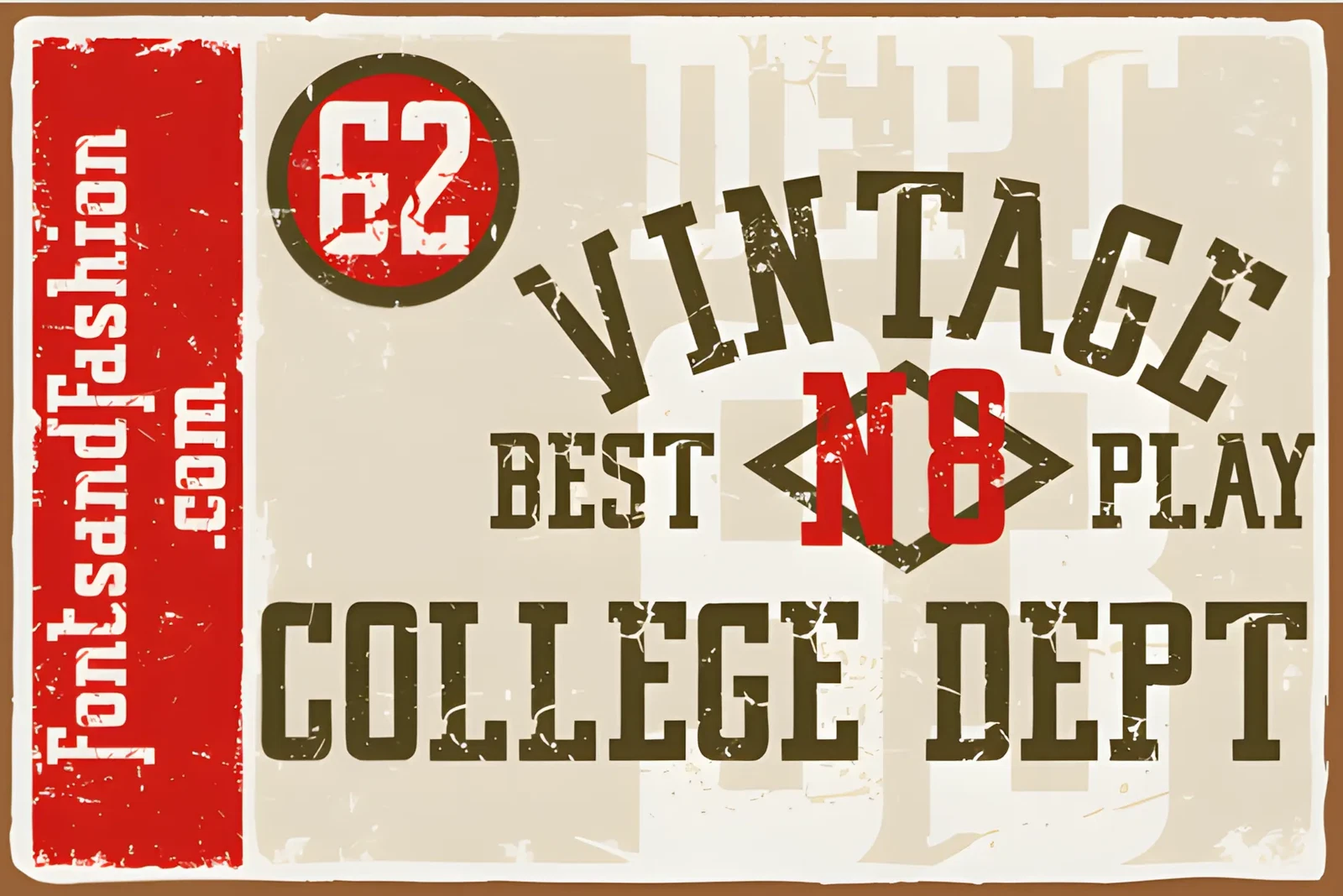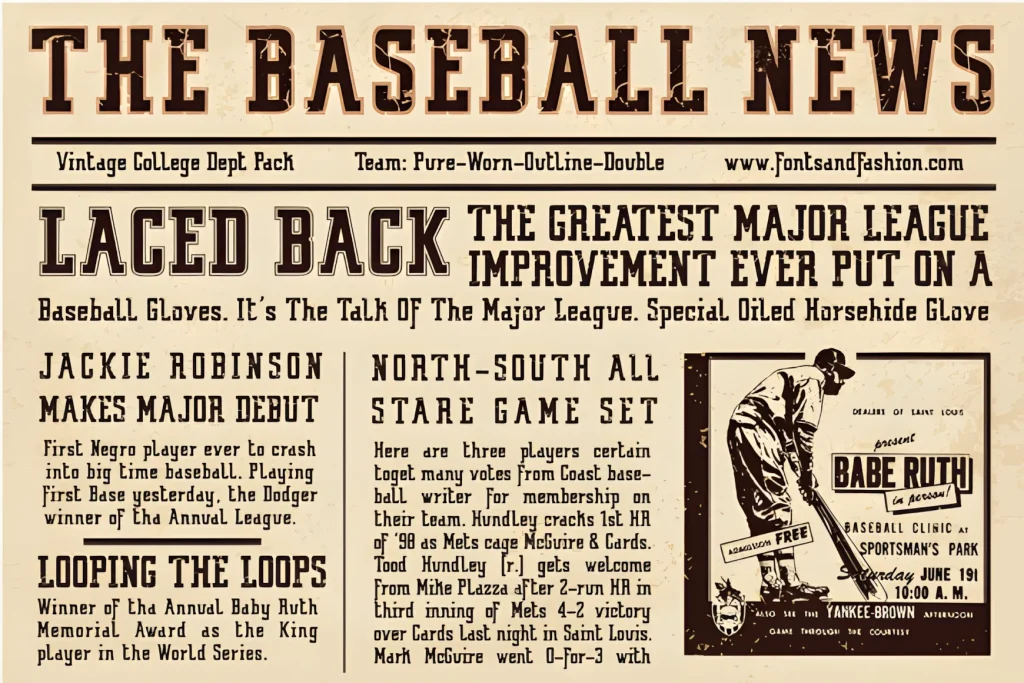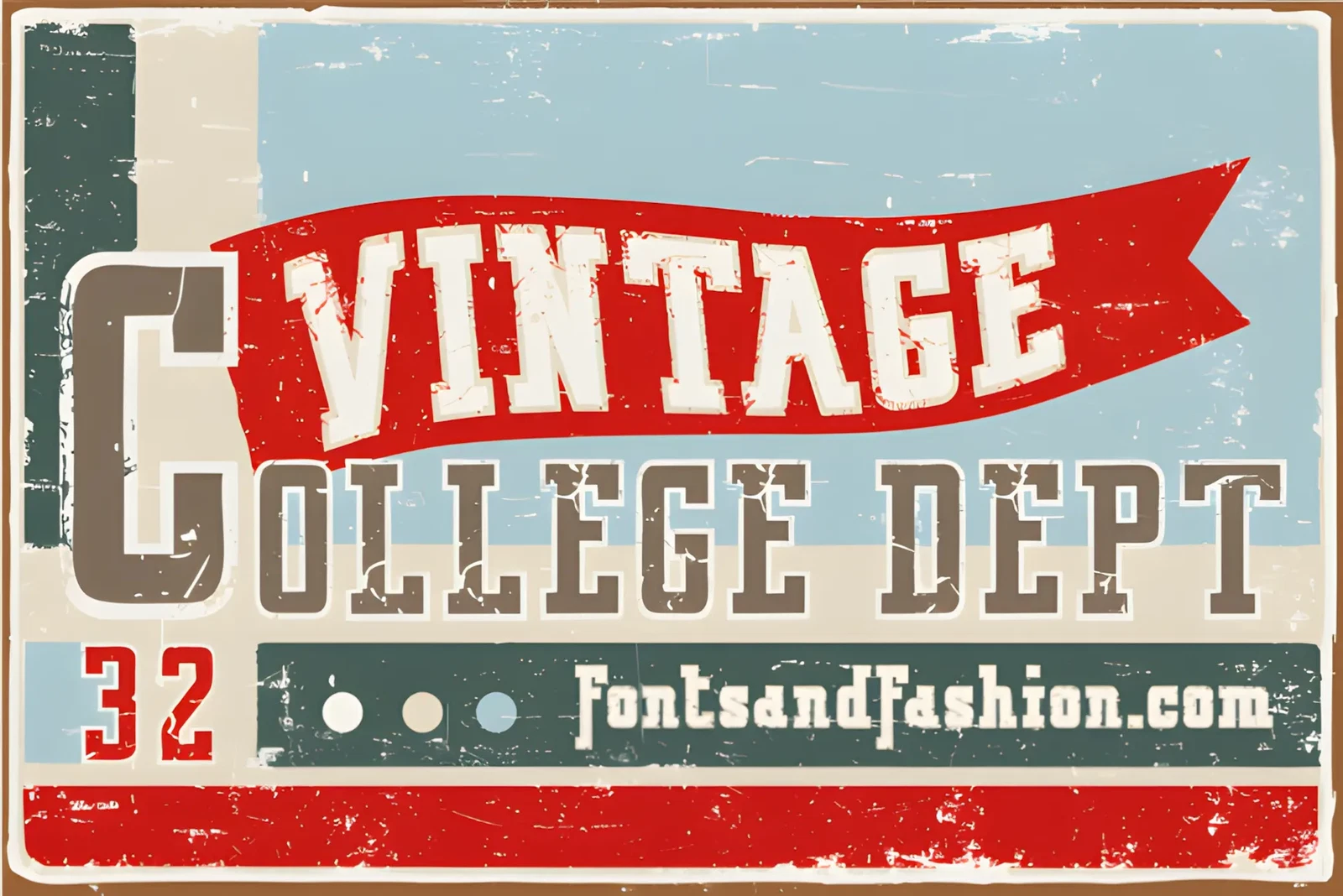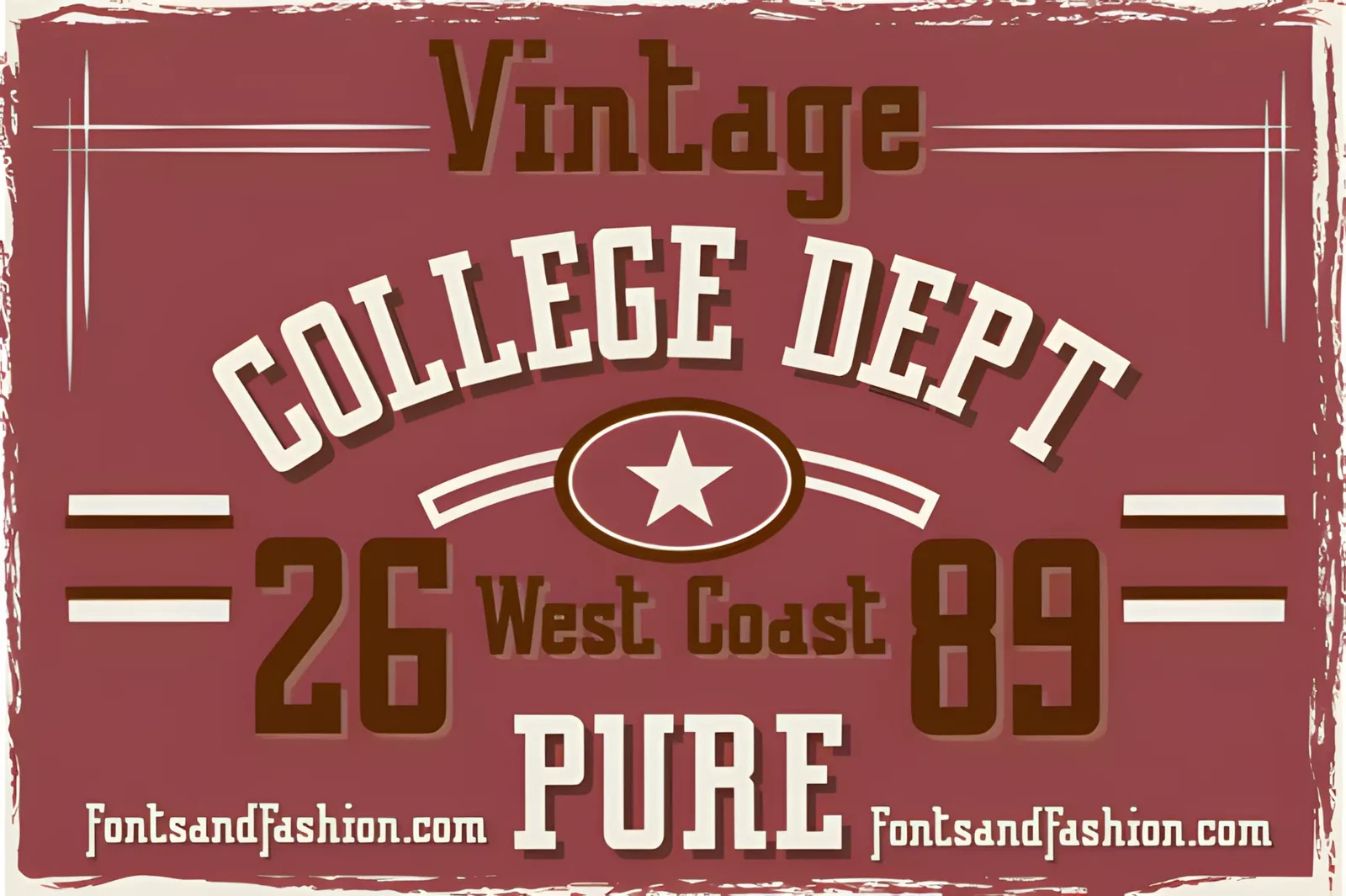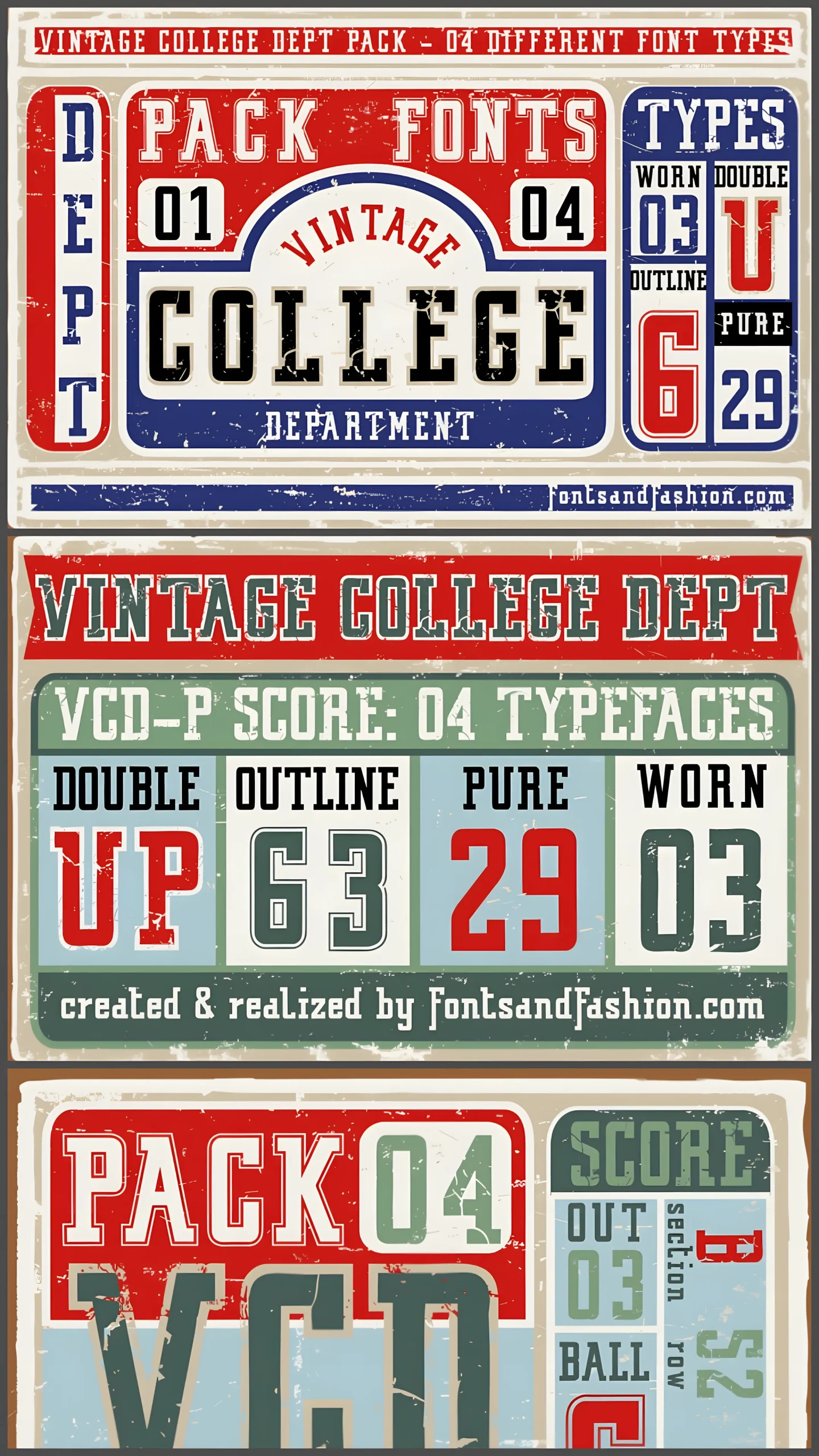
Some fonts immediately bring a sense of tradition and familiarity. Vintage College Font does exactly that. It captures the spirit of classic collegiate typography while adding a warm, rounded finish that makes it feel approachable and modern.
This is a slab serif font family designed for strong visual communication. While its structure is geometric and bold, the softened edges give it a friendly appearance, making it suitable for both promotional and creative design projects.
Visual Style and First Impression
Vintage College Font delivers a balanced and confident look. The letterforms are built on clear geometric shapes, which give the font structure and stability. At the same time, the rounded finish softens the overall appearance, preventing it from feeling rigid or overly industrial.
The result is a typeface that feels solid but welcoming. It carries a clear vintage influence, often associated with college departments, sports signage, and classic posters, yet it remains clean enough to fit into modern layouts.
This balance between strength and warmth is what defines the font’s character.
A Font Family With Multiple Styles
Vintage College Font is not a single style, but a family of four different slab serif fonts. This gives designers flexibility when building layouts, headlines, and branding systems.
Having multiple styles within the same family allows for:
- visual hierarchy
- contrast within headlines
- consistent branding across materials
Designs can feel varied without losing cohesion, which is especially useful for posters, banners, and promotional campaigns.
Designed for Posters, Banners, and Promotions
Vintage College Font was created with visibility in mind. It works especially well in designs where text needs to stand out clearly and confidently.
Typical use cases include:
- posters
- banners
- promotional artwork
- event graphics
The bold slab serif construction ensures that text remains readable from a distance, while the warm finish keeps the design from feeling too harsh.
Practical Design Applications
Branding and Identity Design
Vintage College Font works naturally in branding projects that aim to feel established and trustworthy. It fits well into:
- college and university branding
- department signage
- retro-inspired brand identities
- classic logo designs
The font communicates reliability and tradition without appearing outdated.
Apparel and Merchandise
The strong structure of Vintage College Font translates well to physical products. It works reliably on:
- t-shirts
- hoodies
- hats
- merchandise graphics
The clear shapes hold up in printing and cutting, making the font suitable for print-on-demand and promotional merchandise.
Sports and Team Designs
Because of its collegiate roots, this font fits especially well into sports-related designs. Team logos, jerseys, and banners benefit from its bold, structured look.
It naturally evokes:
- teamwork
- school spirit
- tradition
- competition
This makes it a strong choice for athletic branding and events.
Readability and Font Behavior
Despite its bold appearance, Vintage College Font remains easy to read. The spacing and proportions are carefully balanced, allowing text to stay clear even in dense layouts.
As a display font, it performs best in:
- titles
- headlines
- short phrases
- featured text
For longer paragraphs, pairing it with a clean sans-serif font helps maintain comfort and visual balance.
Emotional Tone and Design Feel
The emotional tone of Vintage College Font is confident and welcoming. It communicates tradition and strength, but the rounded finish adds warmth and approachability.
This makes it suitable for designs that aim to feel:
- classic
- trustworthy
- energetic
- friendly
The font supports messages that need to feel established without appearing cold or distant.
Vintage College Font successfully blends classic collegiate typography with a warm, modern finish. Its geometric structure provides strength, while the rounded details add approachability and balance.
For designers looking for a font that feels traditional yet friendly, bold yet versatile, Vintage College Font offers a reliable solution. Used thoughtfully, it brings character, structure, and timeless appeal to a wide range of creative projects.